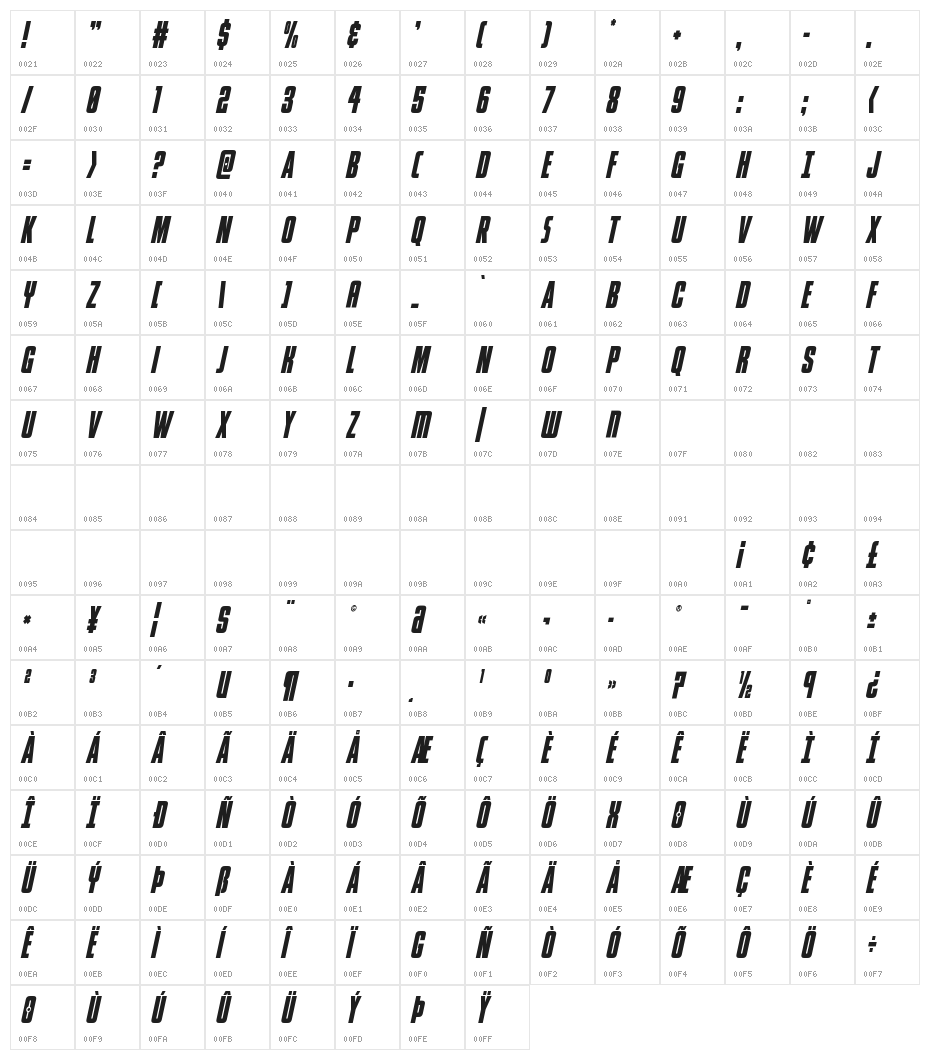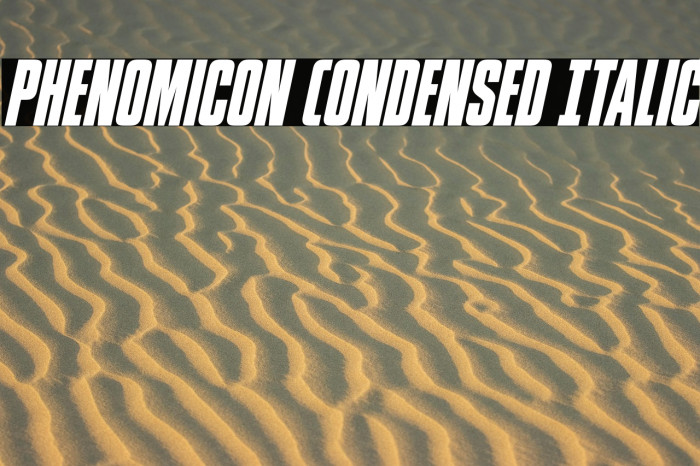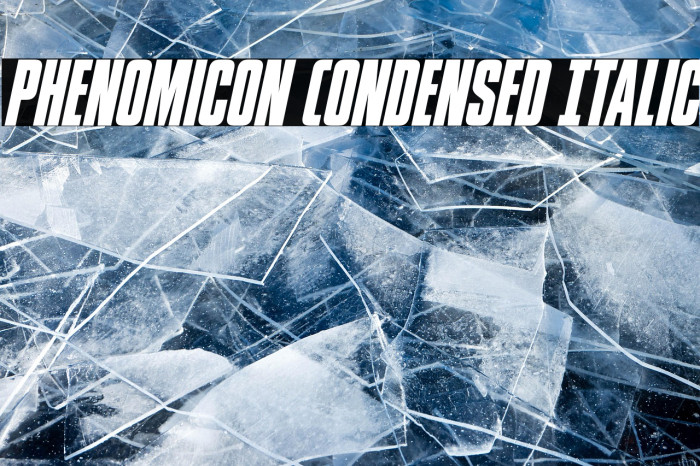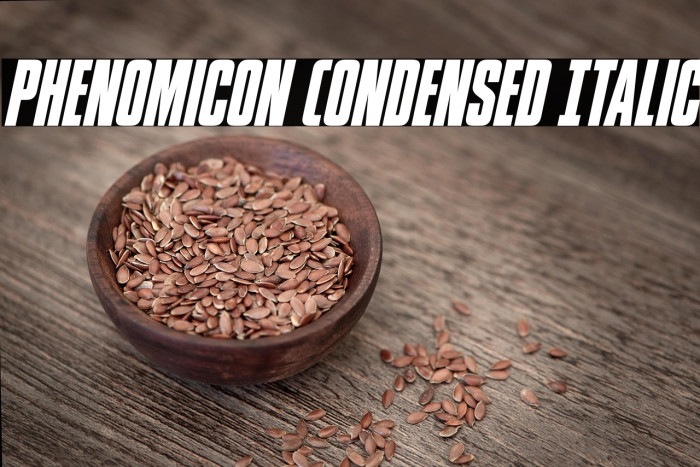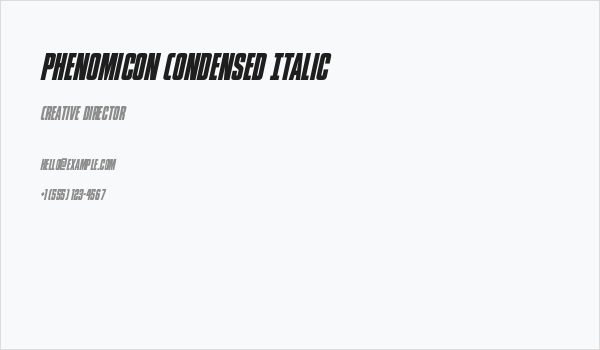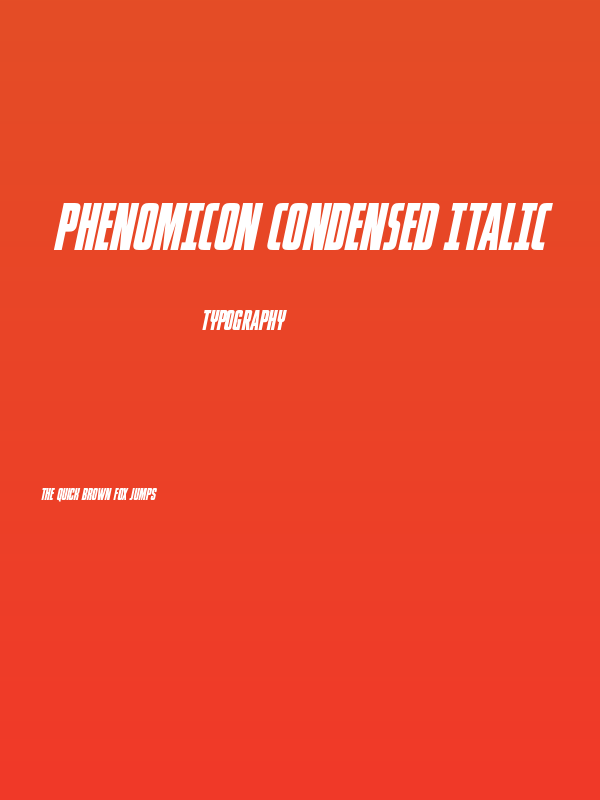
Phenomicon Condensed Italic Font
Phenomicon Condensed Italic Description
This font features a bold and dynamic style with a condensed width, giving it a strong and impactful presence. The italic slant adds a sense of motion and urgency, making it ideal for attention-grabbing headlines or titles. The characters are tightly spaced, enhancing its compact appearance. The high contrast in stroke thickness further emphasizes its boldness, while the sharp, angular edges contribute to a modern and assertive aesthetic. Its distinct style makes it suitable for projects that require a commanding and energetic visual impact.